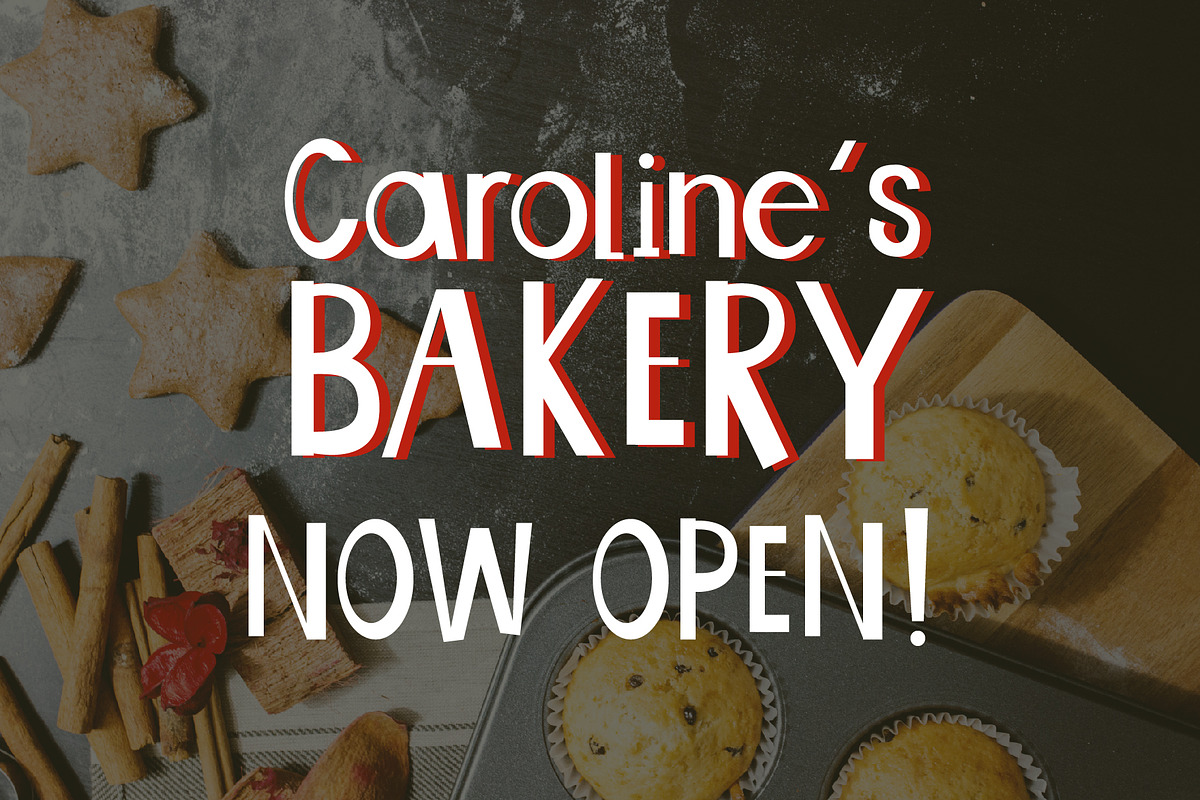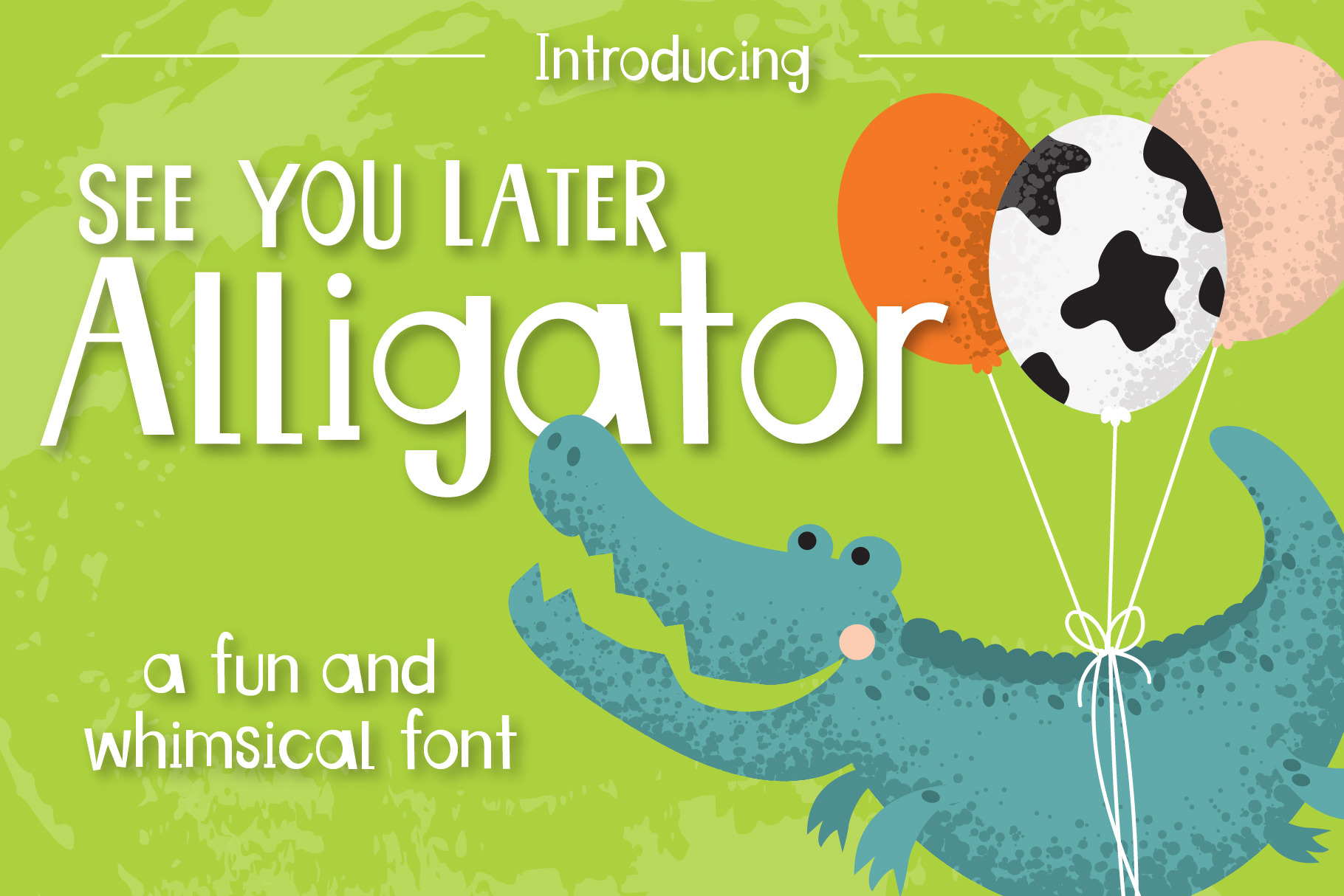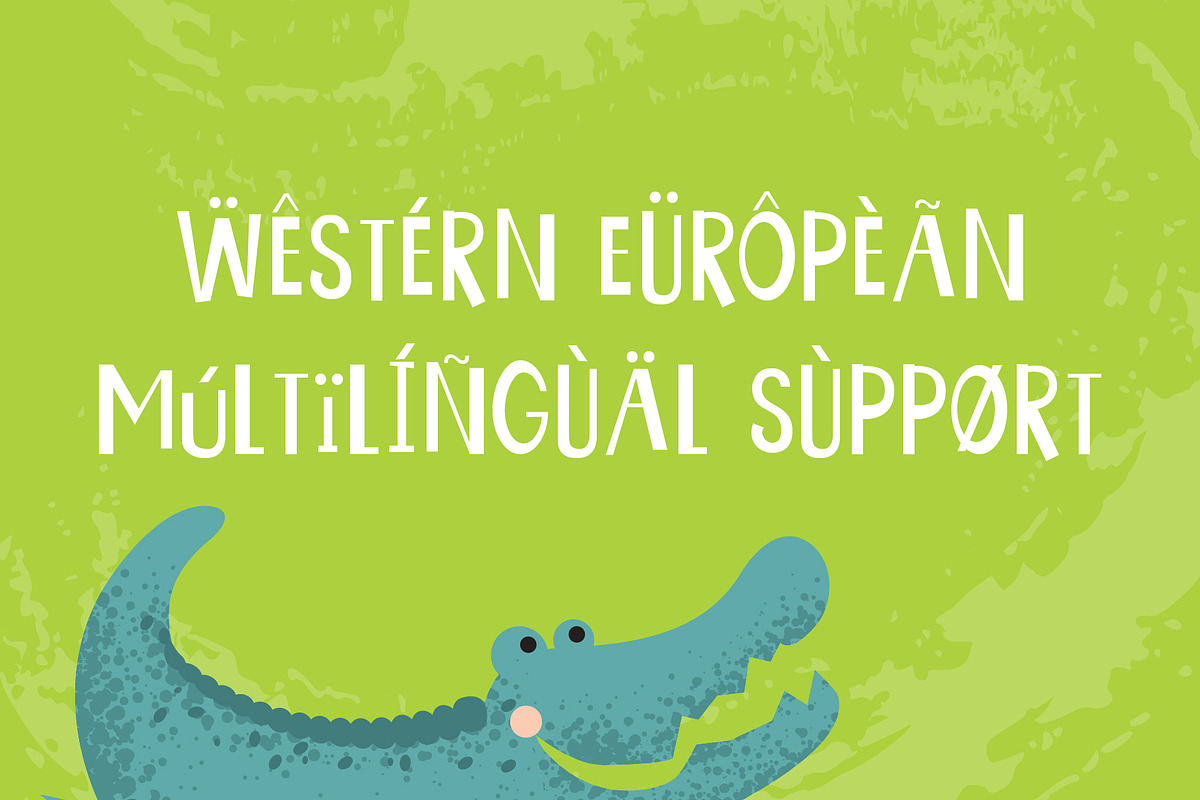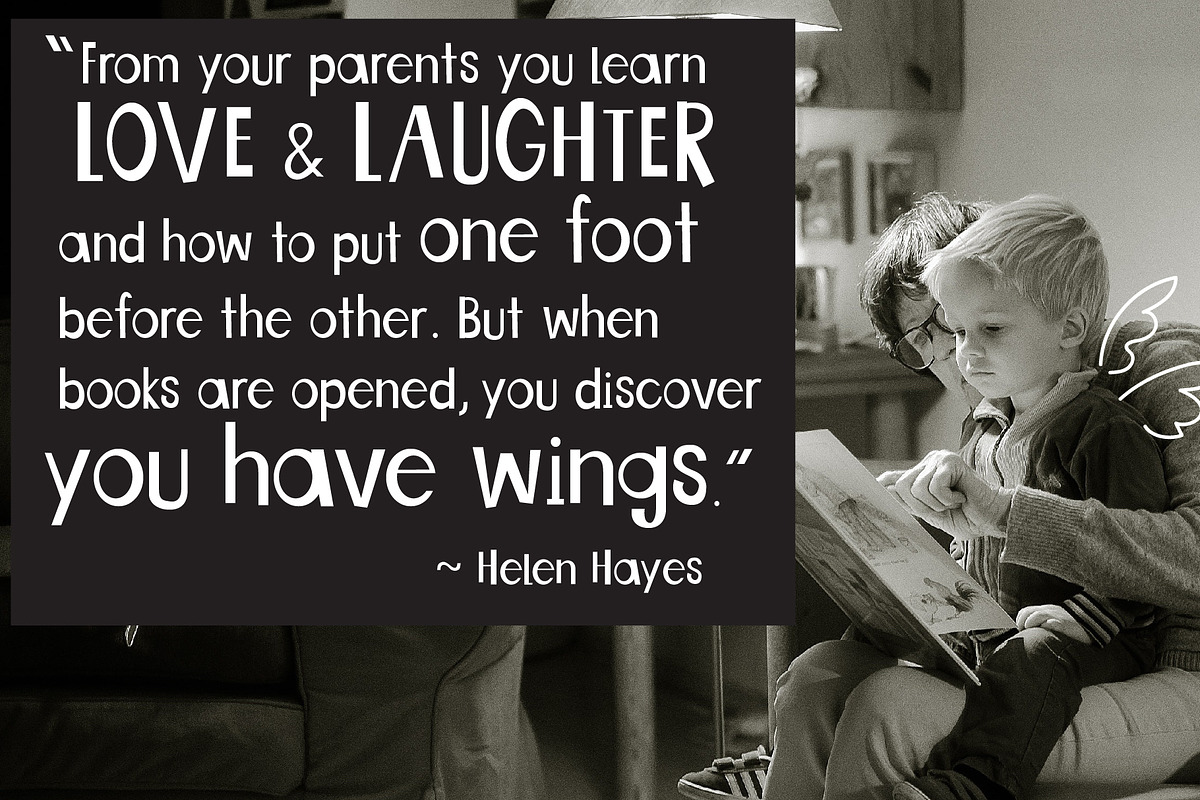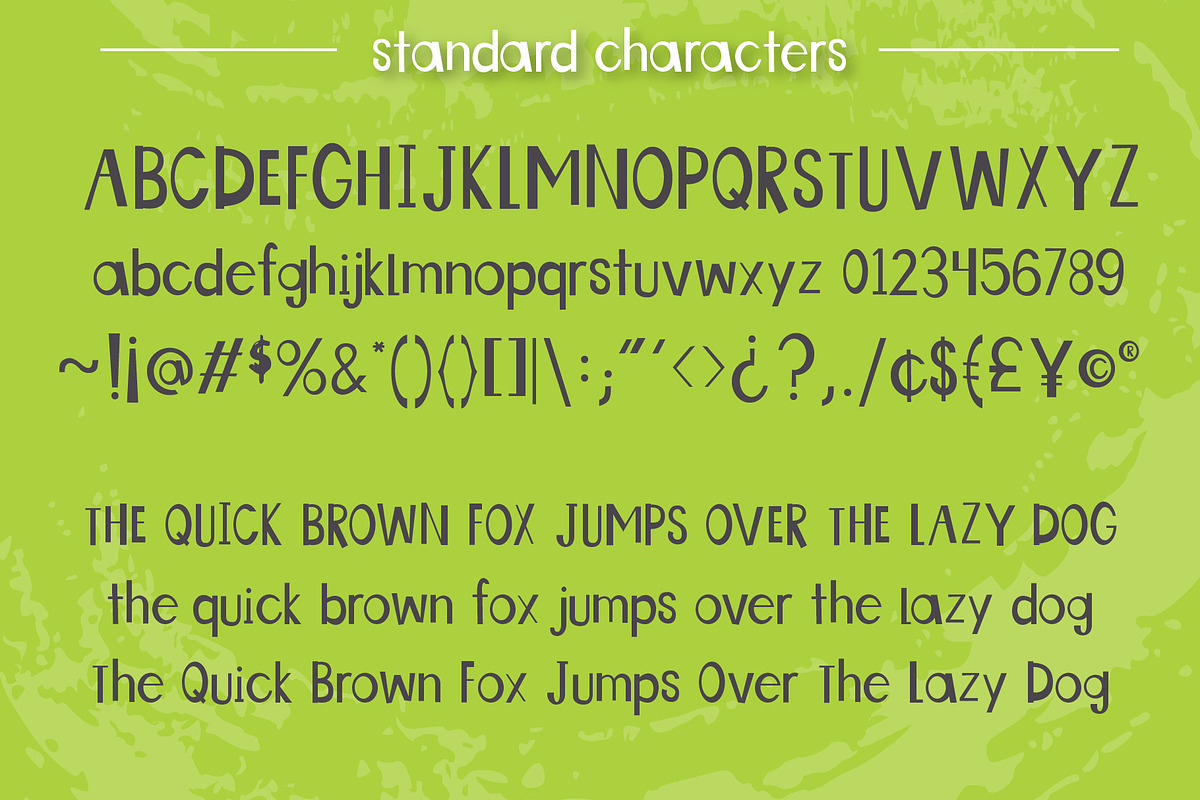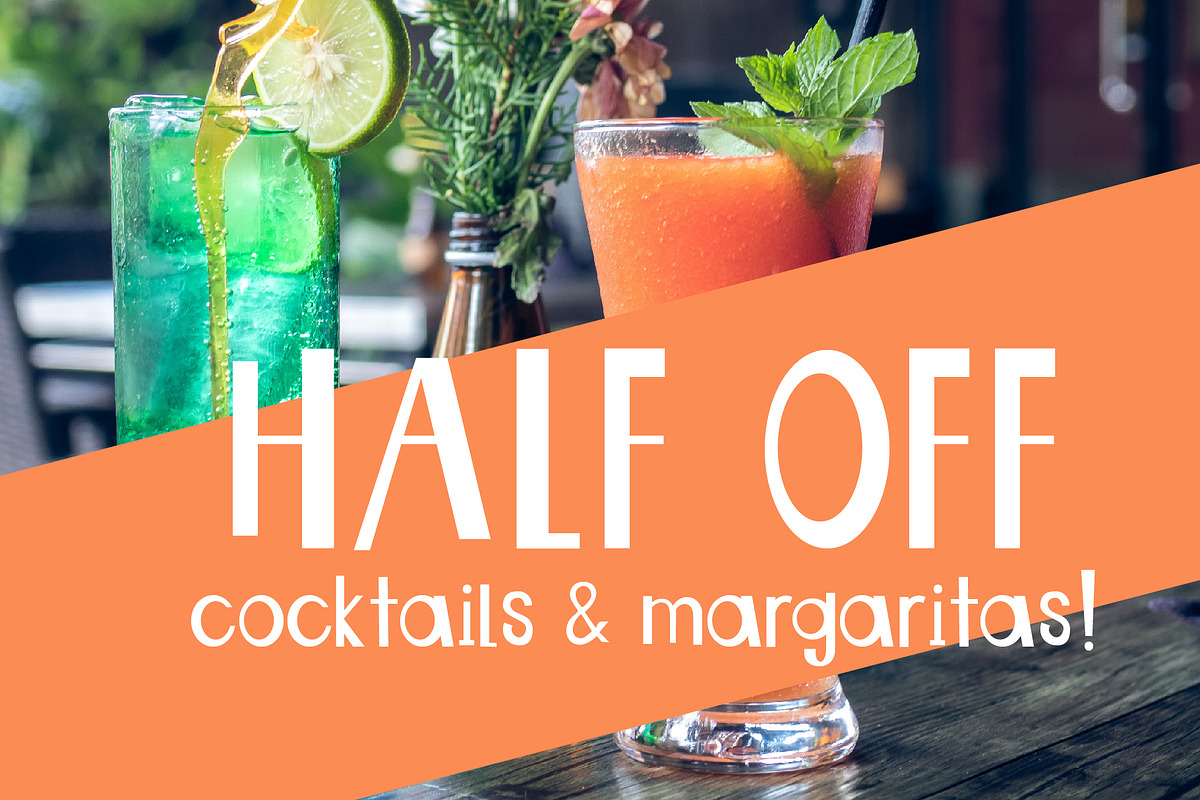
See You Later Alligator - Font
Introducing, See You Later Alligator! A simple clean font that has a children's book attitude. Perfect for crafters and professional designers that want a fun personality in their designs. :)